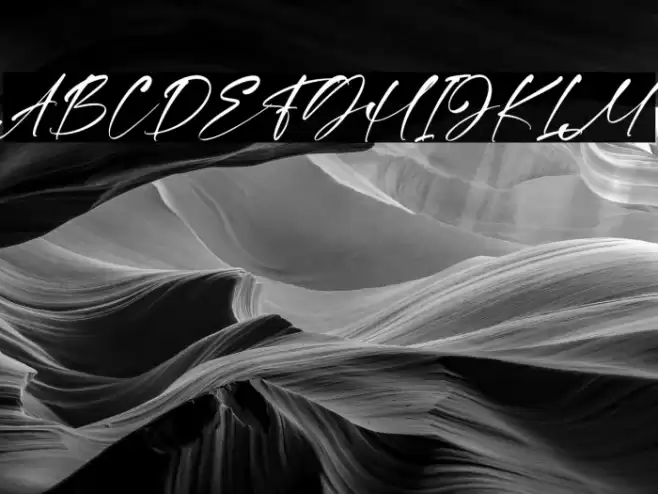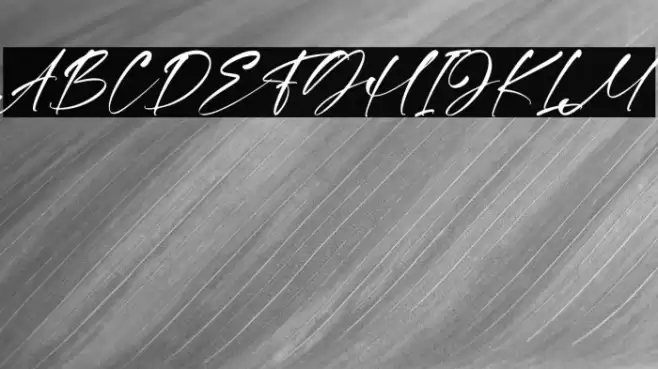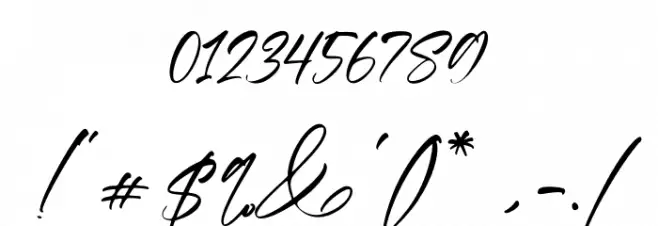
Gilliany Font
Gilliany Description
This font exudes a sense of elegance and fluidity, characterized by its cursive, handwritten style. The letters are connected in a flowing manner, with each character exhibiting a slight slant to the right, enhancing its dynamic appearance. The strokes vary in thickness, providing a medium contrast that adds to its graceful and sophisticated look. The uppercase letters are bold and prominent, while the lowercase letters maintain a consistent flow, making it ideal for creating a personal and inviting feel. The numerals and special characters are crafted with the same attention to detail, ensuring a cohesive and harmonious overall design.
A cursive, handwritten font with elegant, flowing strokes and medium contrast from Uncategorized fonts.
- Font: Gilliany
- Proposed Projects: Ideal for wedding invitations, greeting cards, branding projects, and elegant logos.
- Overall Style: Elegant
- Use Case: Logos, Invitations, Greeting Cards